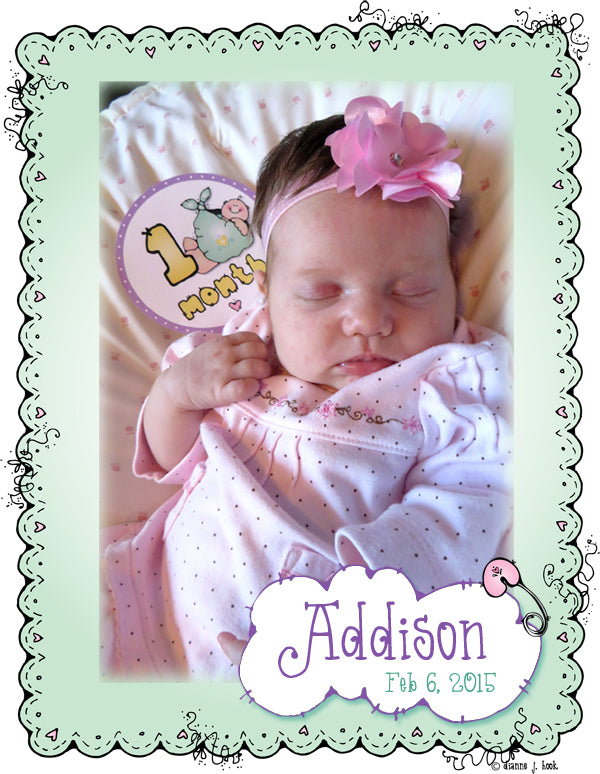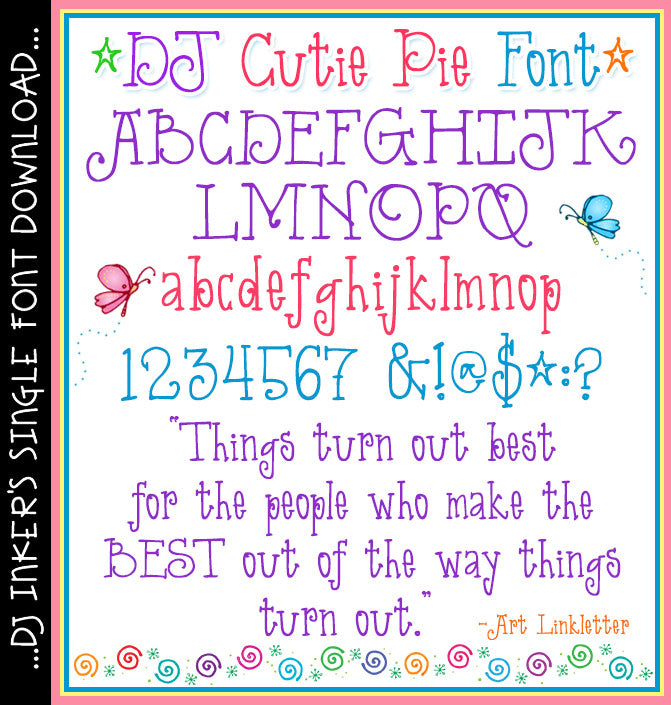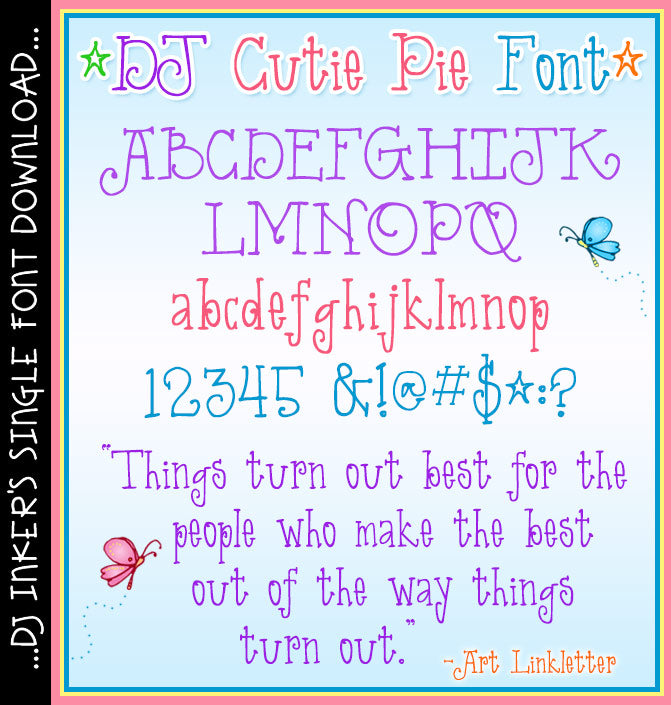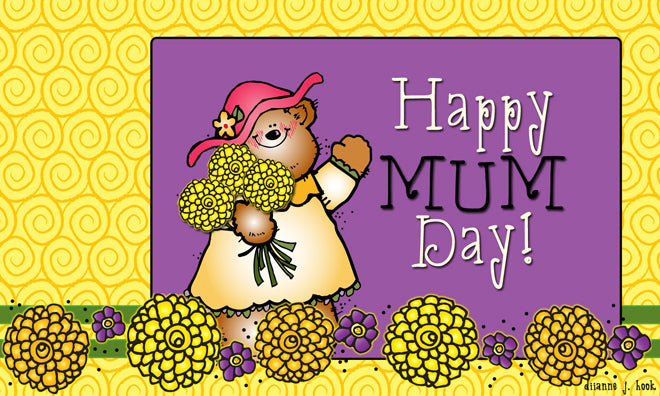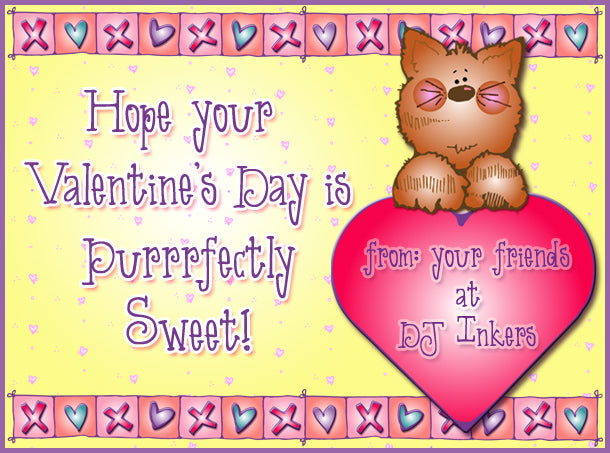
DJ Cutie Pie Font Download
DJ's Cutie Pie font is so darn adorable, you can't help but
smile while you type! Perfect for text in any size or color, this versatile
font will add creative flair to projects of any kind. Fabulous for girls
& swirls, party time, notable quotes and sweet little love notes.